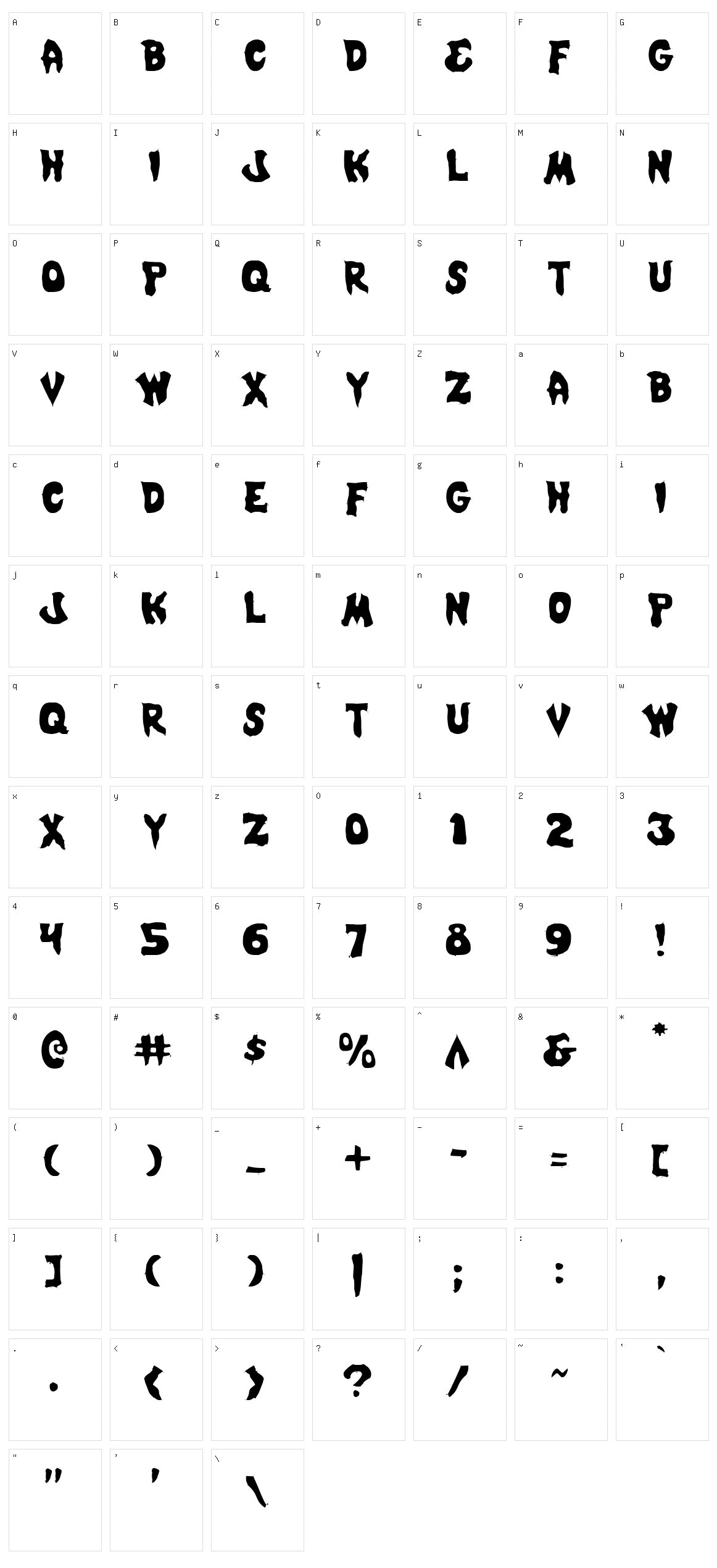
The free font Mystic Singler is carefully designed by Iconian Fonts, showcasing a thoughtful balance of creativity and usability and falls under the Horror font style. When you download the ZIP file, it contains only 521.28 KB of font files, making it lightweight and quick to download. Please review the license details below to understand permitted usage and distribution rights. If license information is not available, we recommend using this font for personal projects only or contacting the author directly for commercial usage permissions.
This font comes with the following 9 versions: Regular, Italic, Expanded, Expanded Italic, Condensed, Condensed Italic, Light, Light Italic and Leftalic.